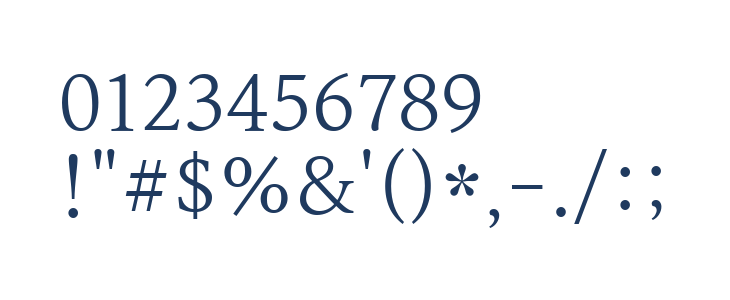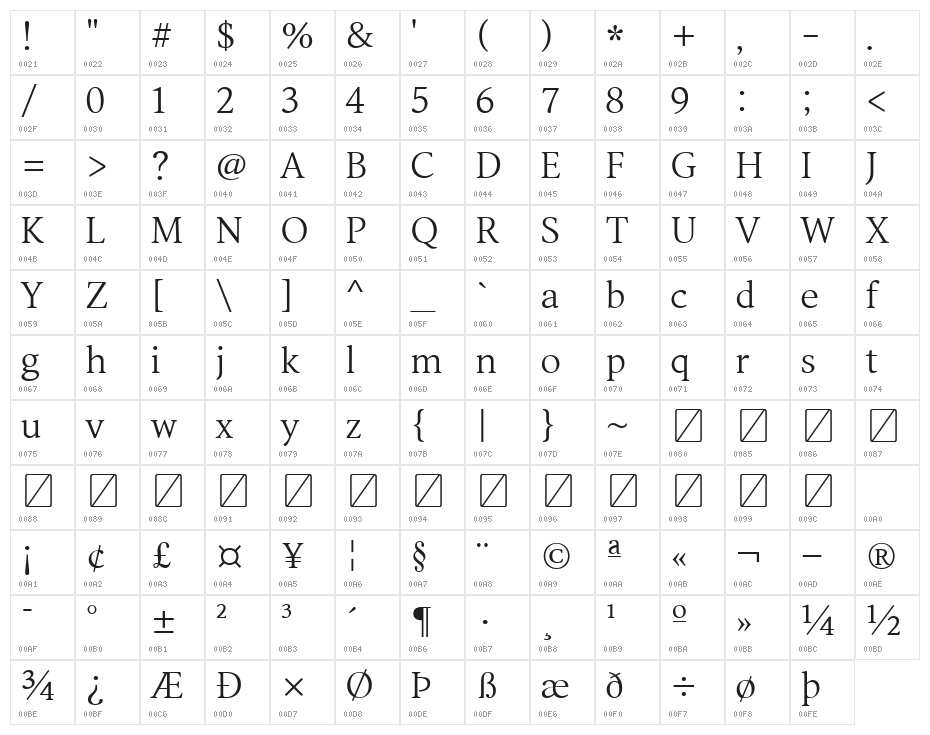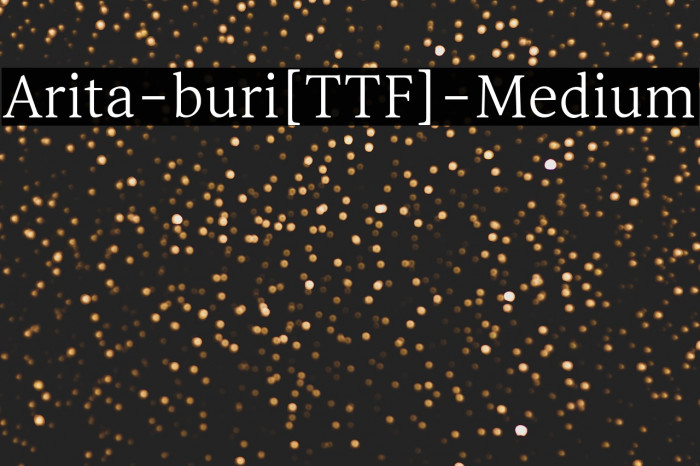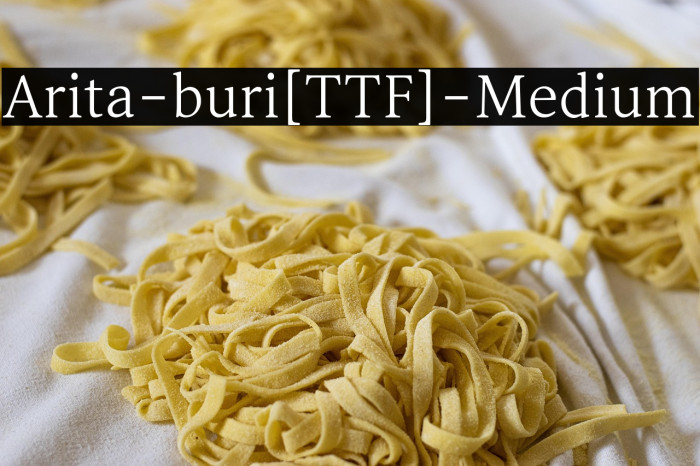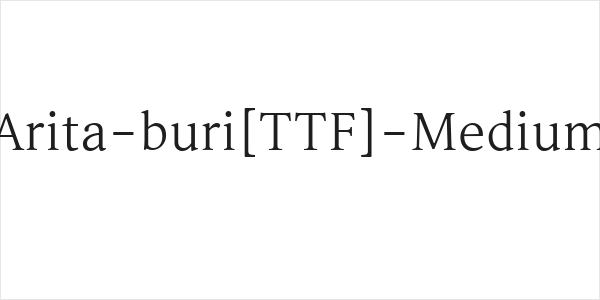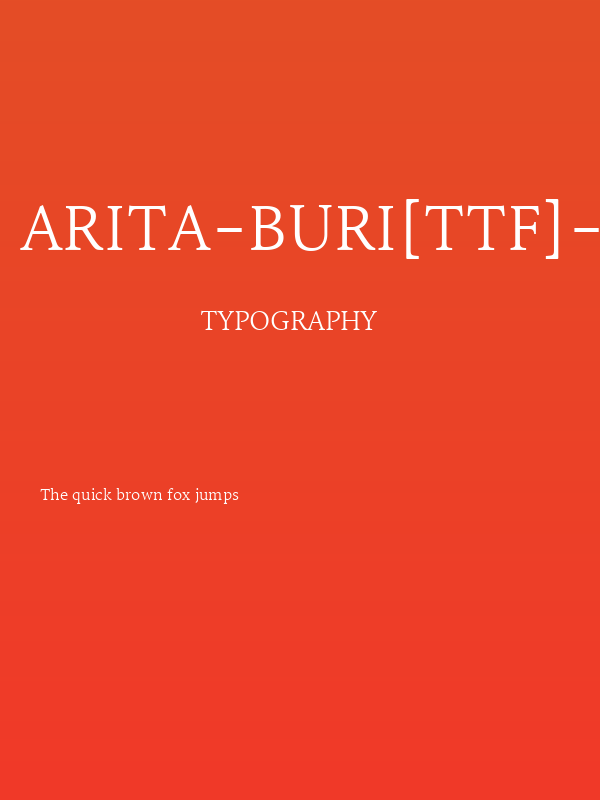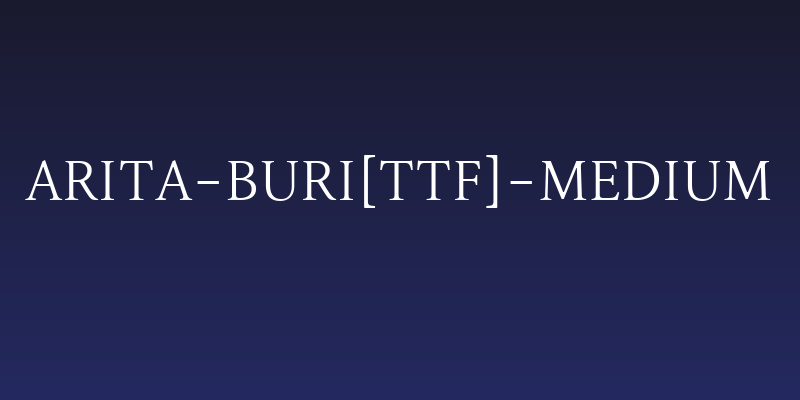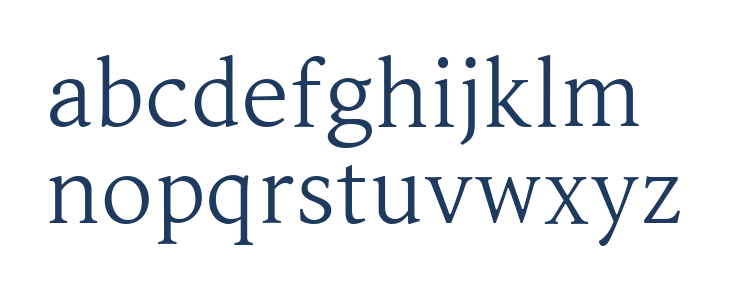
Arita-buri[TTF]-Medium Font
Arita-buri[TTF]-Medium Description
This font exhibits a classic serif style with elegant and refined strokes. The characters are well-proportioned, featuring a harmonious balance between thick and thin lines, which adds a touch of sophistication. The uppercase letters are stately and commanding, while the lowercase letters maintain a smooth and flowing appearance. The numerals are clear and distinct, ensuring readability. Special characters are crafted with precision, complementing the overall aesthetic. This font is versatile, suitable for both formal and contemporary designs, making it ideal for a variety of applications.